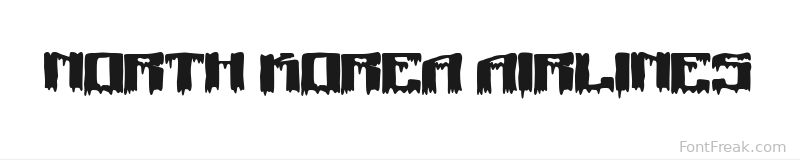
North Korea Airlines
The North Korea Airlines font by woodcutter Manero is a striking display typeface that captures attention with its unique and bold aesthetic. This font features sharp, jagged edges and an irregular stroke weight, which evokes a sense of intrigue and dynamism. The contrast between the thick and thin parts of the letters gives it a distinctive look, while the uneven spacing adds to its unconventional charm. This decorative font is perfect for projects that require a touch of drama and visual interest.
Ideal for a variety of uses, the North Korea Airlines font shines in contexts such as movie posters, where it can evoke a sense of adventure or suspense. It's also suitable for themed events or festivals, capturing the essence of a particular cultural or artistic vision. Small business owners looking to create eye-catching signage or branding materials will find this font a valuable asset. Additionally, graphic designers can utilize it in creating promotional materials or merchandise that demands attention and stands out from the crowd.
The target audience for this font includes graphic designers, small business owners, and content creators who seek to make a bold statement with their typography. Whether you are crafting a unique flyer for an event or designing a memorable logo, the North Korea Airlines font offers versatility and flair.
What makes this font truly stand out is its ability to convey a sense of uniqueness and character, making it an excellent choice for projects that aim to leave a lasting impression. With the North Korea Airlines font free download available, you can easily incorporate this eye-catching typeface into your designs and elevate your creative projects to new heights.